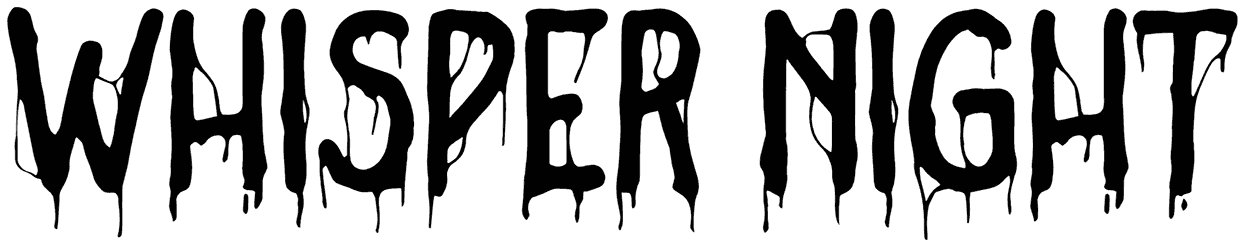
Whisper Night Font
Whisper Night is a bold Halloween font that is so scary with its dripping texture, which can easily creep you out. However, it looks cute and playful; you can use it for creating unique projects related to kids.
This font doesn’t include lowercase letters, but it can be used in various subjects such as horror movies, costume prints, party invitations, scary books, and Halloween concepts.